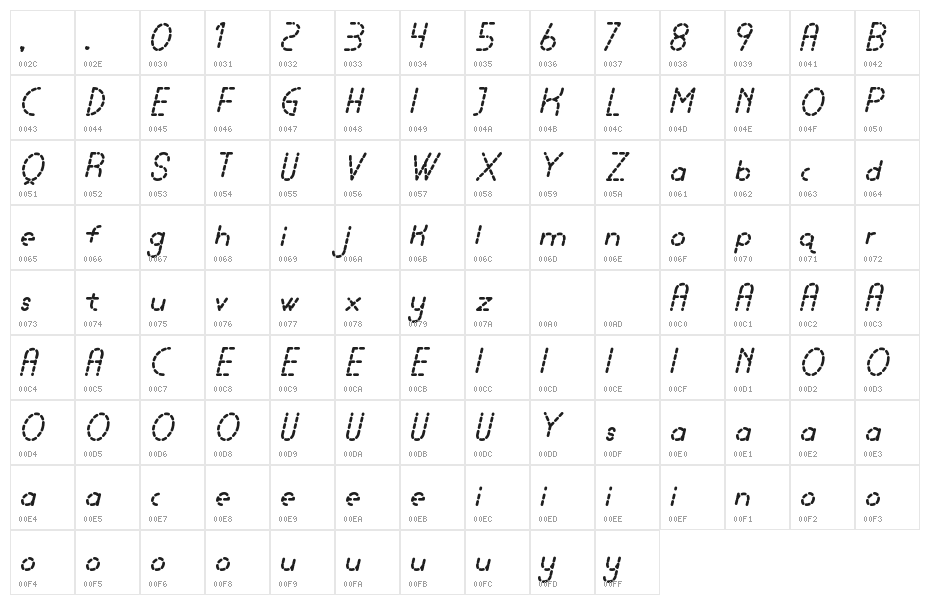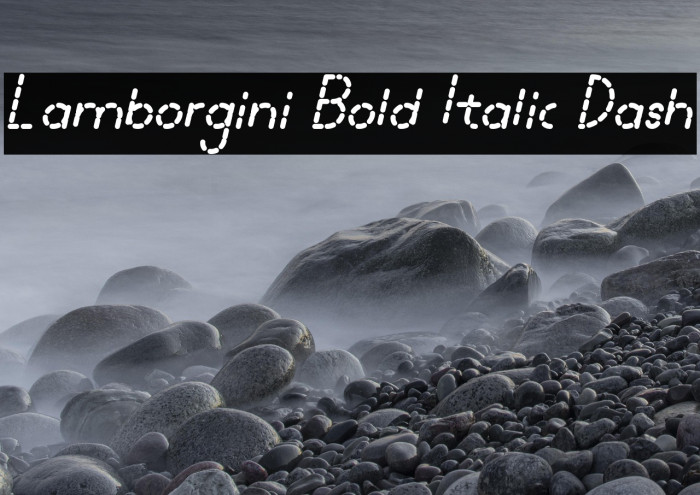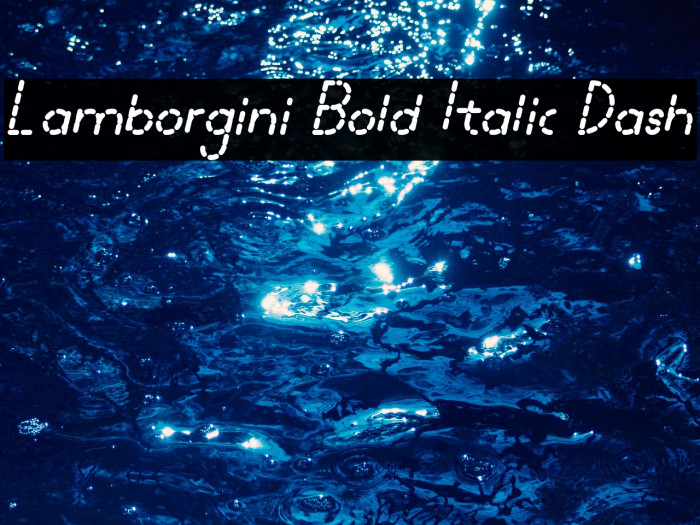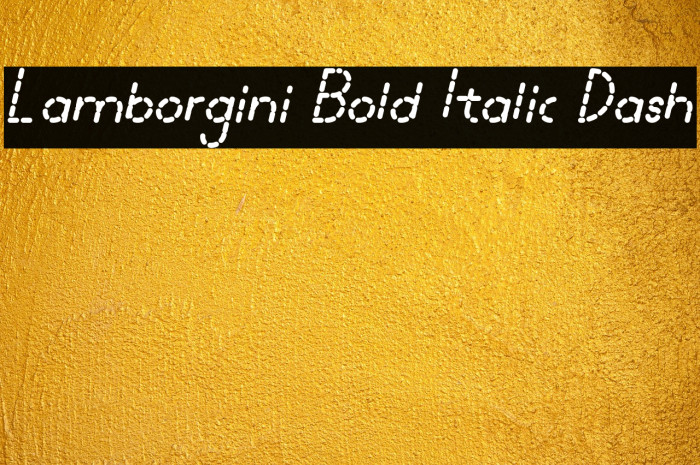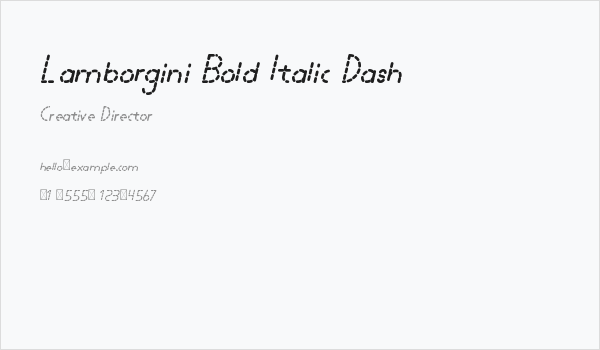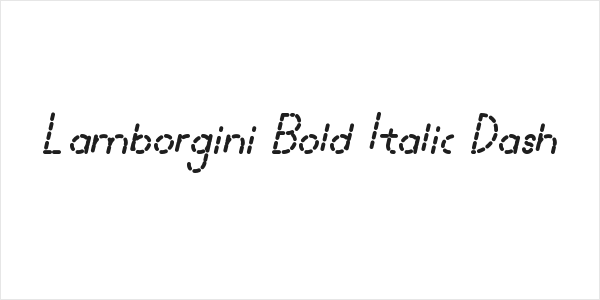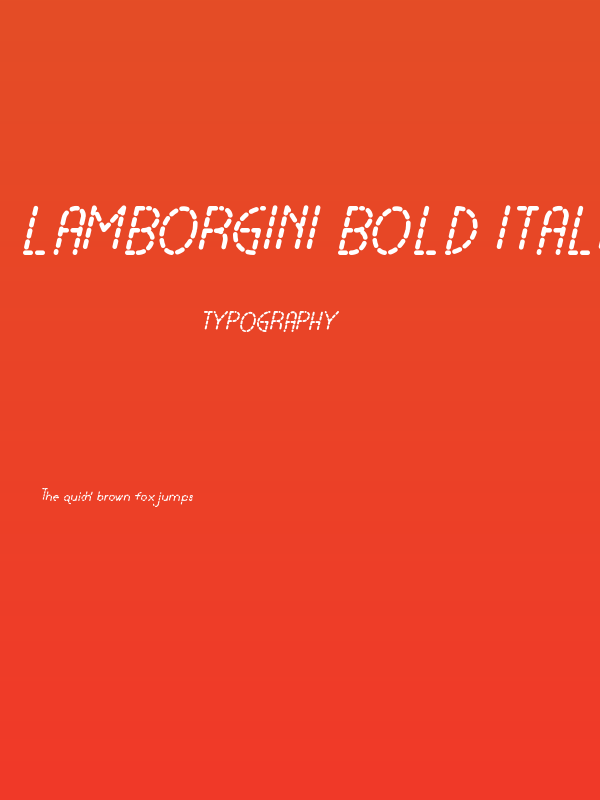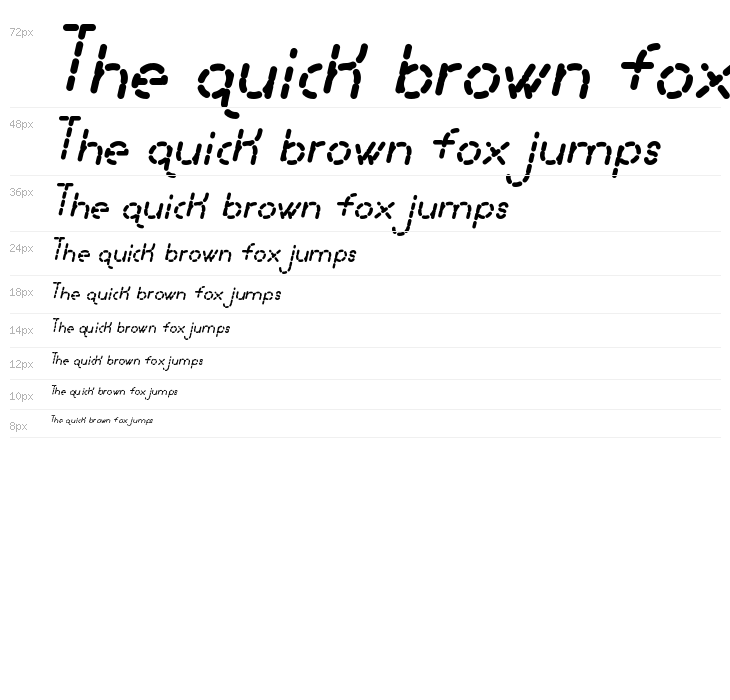
Lamborgini Bold Italic Dash Font
Lamborgini Bold Italic Dash Description
This font features a unique dashed style that gives it a distinctive, modern look. The characters are bold and italicized, with each letter and number composed of evenly spaced dashes. This design choice adds a playful and dynamic feel to the text, making it stand out. The uppercase and lowercase letters maintain a consistent style, ensuring readability while adding a creative twist. The numbers and special characters follow the same dashed pattern, providing uniformity across the font. This font is ideal for projects that require a bold statement with a touch of creativity.